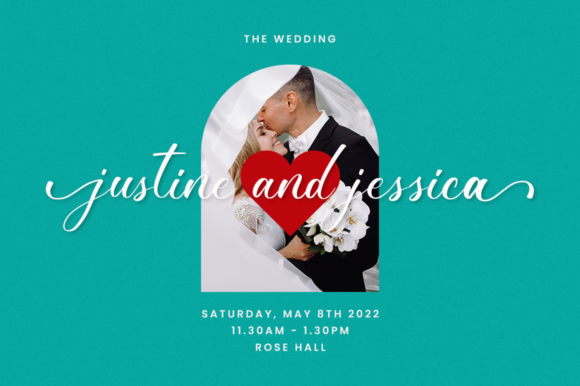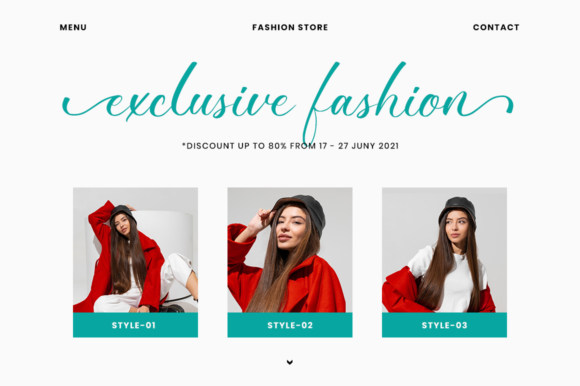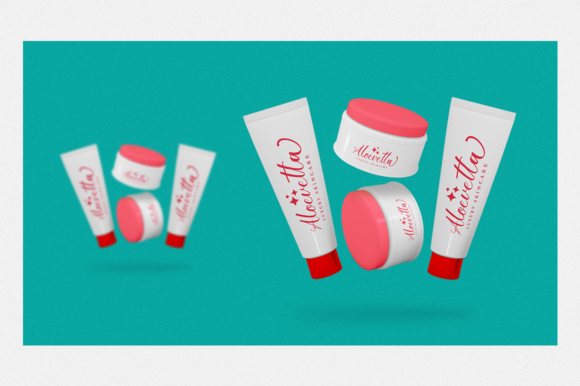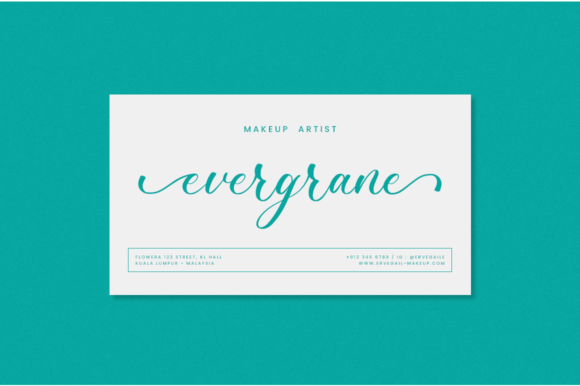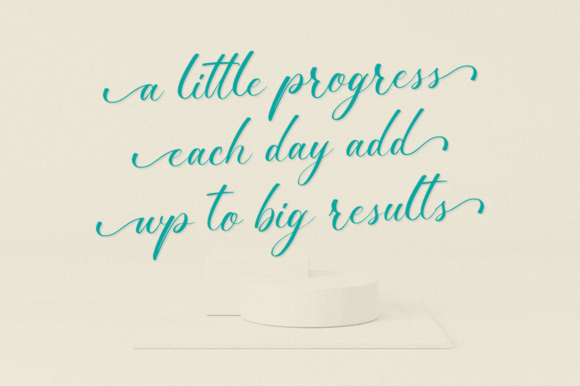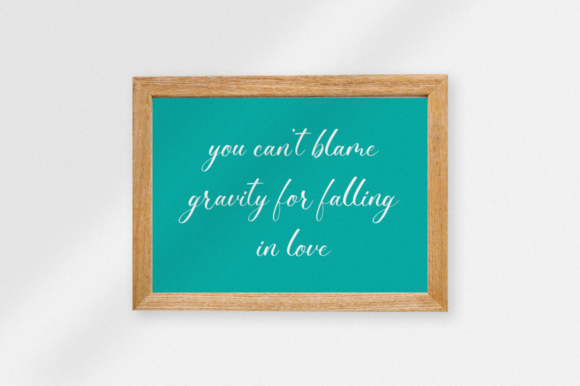
The Perfect Touch: Elevate Your Designs with Jewellerya Font
As a designer, there’s nothing quite like the feeling of bringing a new project to life. The moment when your ideas start to take shape, and your creativity flows freely – it’s a rush like no other. For me, it’s often the small details that make all the difference. A perfectly placed font, a delicate touch of color, or a clever use of whitespace can elevate an entire design and make it truly unforgettable.
That’s why I’m excited to introduce you to Jewellerya Font – a beautiful, handwritten font that’s perfect for adding a touch of sophistication and charm to your designs. With its PUA encoding, you’ll have access to all the glyphs and swashes you need to create truly unique and eye-catching projects. Whether you’re working on a card, a brand, or a label, Jewellerya Font is the perfect choice to add that extra special something.
- Font Family: Jewellerya
- Unique Characteristics: Ornate, elegant, and luxurious feel; ideal for high-end jewelry, fashion, and luxury brands
Jewellerya Font Review
I recently had the chance to work with Jewellerya Font, and I’m excited to share my honest thoughts on this unique typeface. ✨ One of the things that stands out is its elegant and luxurious feel, making it perfect for high-end jewelry or fashion brands. The font’s intricate details and ornate elements add a touch of sophistication, which is sure to elevate any design.
Here are some of the key features that work well in Jewellerya Font:
- ✨ Elegant and luxurious feel
- ✨ Intricate details and ornate elements
- ✨ Perfect for high-end jewelry or fashion brands
- ⚠️ Limited character set
- ⚠️ Not ideal for body text or long paragraphs
- ⚠️ Can be difficult to read at smaller font sizes
Overall, I would give Jewellerya Font 4 out of 5 stars. It’s a beautiful and unique typeface that’s perfect for specific design projects, but it may not be the best choice for everyday use. With some careful planning and consideration, Jewellerya Font can be a stunning addition to any design.
Tips for Getting the Most Out of Jeweliana Font
For best results, use Jeweliana Font in combination with elegant graphics and a minimalist color scheme. Experiment with different font sizes and styles to create visual interest. Consider using Jeweliana Font for headings and titles to create a sophisticated look.
Common Use Cases for Jeweliana Font
Jeweliana Font is ideal for creating high-end designs, such as luxury brand logos, wedding invitations, and fine art prints. It’s also suitable for use in fashion and jewelry advertising, as well as in design projects that require a touch of elegance and sophistication.
Alternatives to Jewellerya Font
Playfair Display is an elegant, luxurious script font. It is ideal for use in high-end branding, packaging, and advertising where a touch of sophistication is required. It features intricate connections between letters and a classic feel.
Compared to Jewellerya Font, Playfair Display is more formal and traditional, making it a better choice for formal events and luxury brands. Jewellerya Font, on the other hand, has a more modern and trendy feel.
Carolyna Pro is a modern, elegant script font with a touch of sophistication. It is suitable for use in fashion, beauty, and lifestyle branding where a high-end feel is required. It features beautiful connections between letters and a classic feel.
Compared to Jewellerya Font, Carolyna Pro is more modern and trendy, making it a better choice for fashion and beauty brands. Jewellerya Font has a more delicate and whimsical feel.
Great Vibes is a modern, elegant script font with a touch of playfulness. It is ideal for use in fashion, beauty, and lifestyle branding where a fun and youthful feel is required. It features beautiful connections between letters and a modern feel.
Compared to Jewellerya Font, Great Vibes is more playful and modern, making it a better choice for fashion and beauty brands targeting a younger audience. Jewellerya Font has a more delicate and vintage feel.